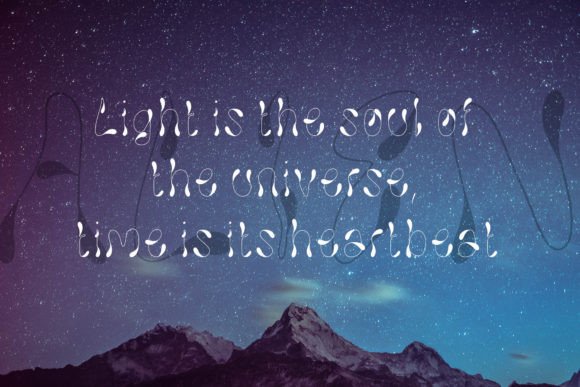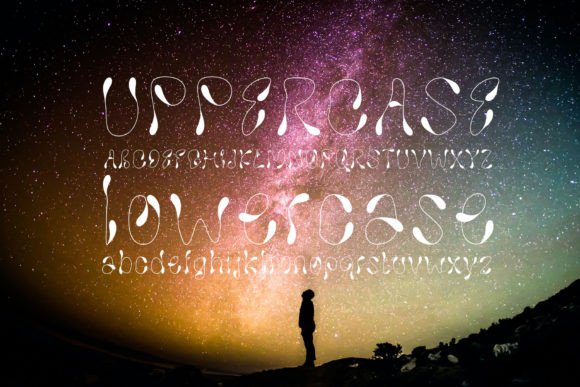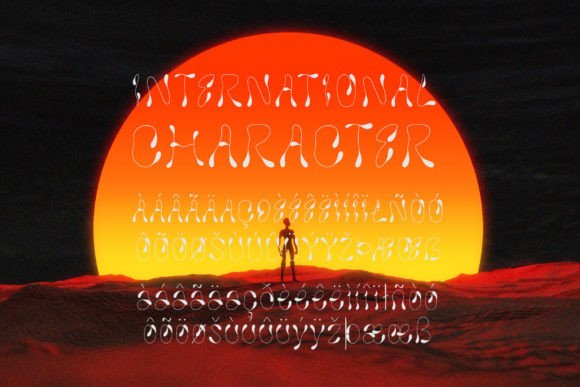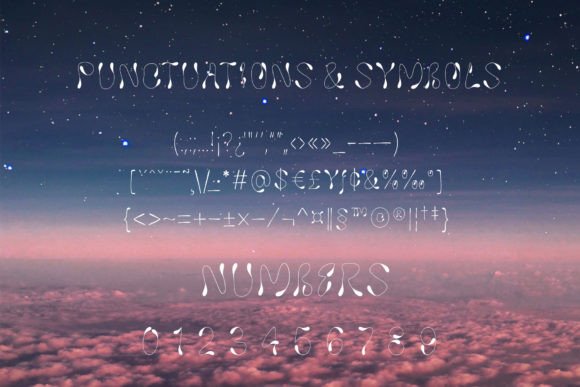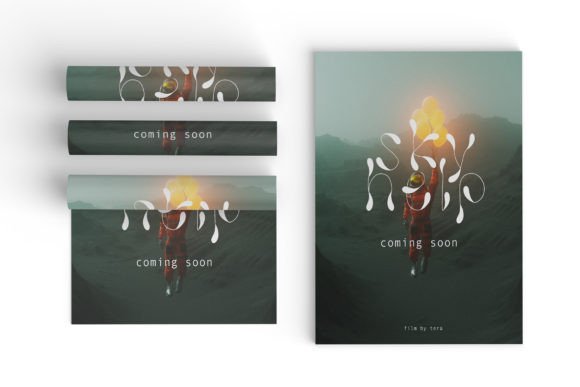
Introduction to Liquid Alien Font
Have you ever stared at a blank page, waiting for inspiration to strike? For designers, this moment is a familiar one. The blank canvas can be both a blessing and a curse – a chance to start anew, yet a daunting task to bring a concept to life. But what if you could tap into a font that not only sparks creativity but also propels your project into the future?
Enter the Liquid Alien Font, a modern masterpiece that redefines the boundaries of typography. This innovative font is more than just a design element – it’s a statement piece that can elevate your creative project from ordinary to extraordinary. With its unique, flowing design, the Liquid Alien Font offers a fresh perspective on visual communication, making it a valuable resource for designers seeking to stand out from the crowd.
Key Features of Liquid Alien Font
- High-quality design: This font is perfect for creative projects that require a unique and eye-catching visual element.
- Unique alien-inspired design: The Liquid Alien Font features a distinctive, otherworldly design that’s perfect for science fiction, fantasy, or futuristic projects.
Honest Review: Liquid Alien Font
I recently came across the Liquid Alien Font, a high-quality design resource that has the potential to elevate any creative project. I was excited to dive in and see what it had to offer.
- Unique Style**: The Liquid Alien Font has a distinctive, otherworldly aesthetic that sets it apart from more traditional fonts.
- Limited Character Set**: The font only includes a limited character set, which may be a drawback for designers who need to support a wide range of languages.
Overall, the Liquid Alien Font is a solid addition to any designer’s toolkit. While it has its limitations, its unique style and high-quality vectors make it a great choice for creative projects. With a little patience and experimentation, you can unlock its full potential and create some truly out-of-this-world designs.
Liquid Alien Font
Getting the Most Out of Liquid Alien Font
Use the Liquid Alien Font with a transparent background to create a unique design element. Experiment with different font sizes and colors to add visual interest to your design. This font is perfect for creating a high-quality design resource for your creative project.
The Liquid Alien Font is commonly used in graphic design, digital art, and creative projects. It’s perfect for adding a touch of futuristic style to your design. You can use it to create logos, posters, and other design elements.